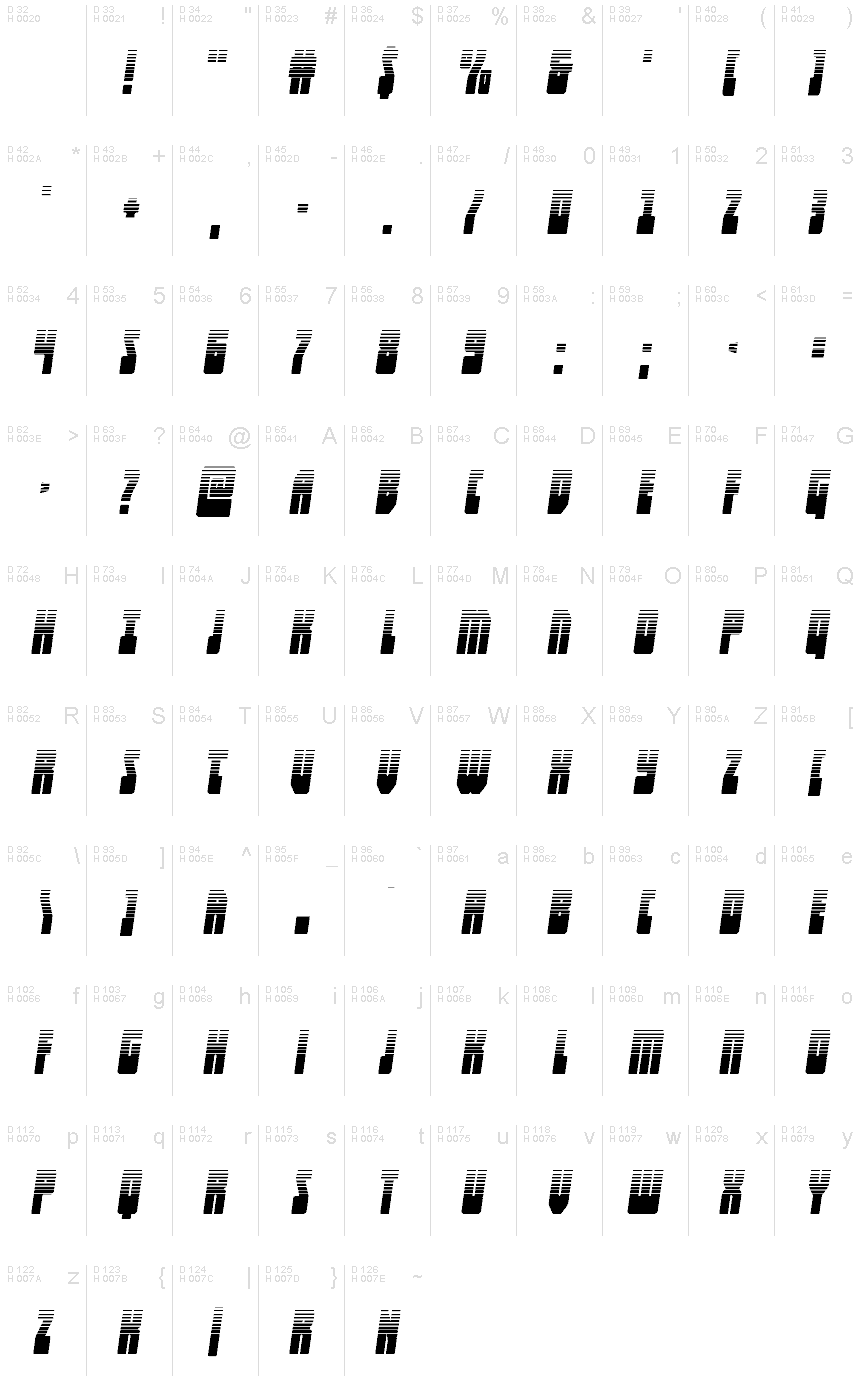
Elastic Lad Expanded Half-Ital
Elastic Lad Expanded Half-Italic font by Iconian Fonts is a bold display font with a groovy style, perfect for modern typography projects. The futuristic and geometric alphabet is given a striped pattern and other optical effects which further enhance the letters’ high-tech aesthetic. With an italic style and slightly condensed width, this dynamic typeface has a strong visual impact when used outdoors or indoors.
Having both lightness and heaviness to it at the same time, Elastic Lad perfectly fits logos, banners, posters, flyers backgrounds, labels, packaging designs or infographics. The free catalog of uses also includes headings in both digital and printed materials such as websites and magazines.